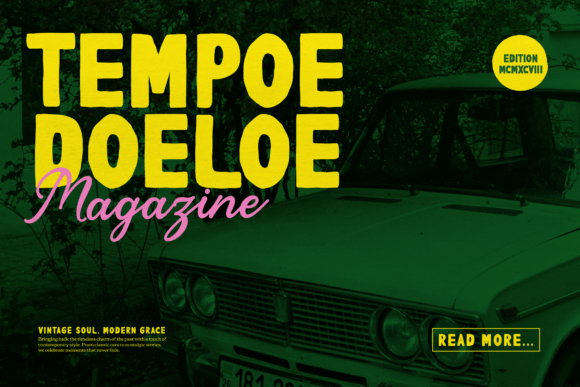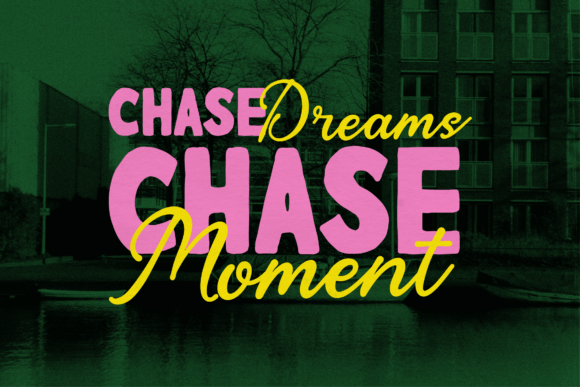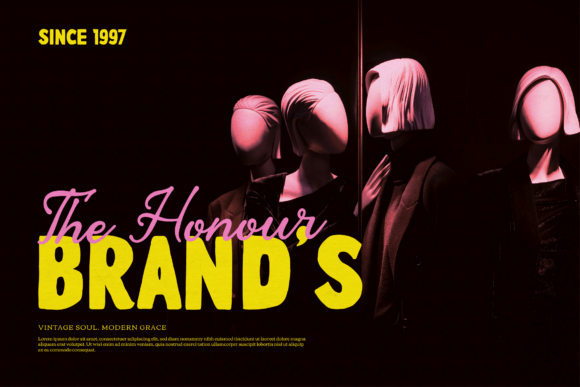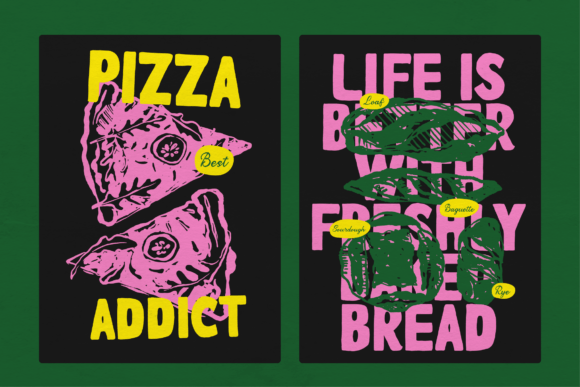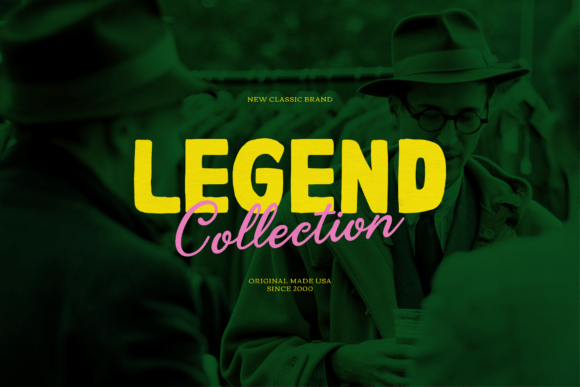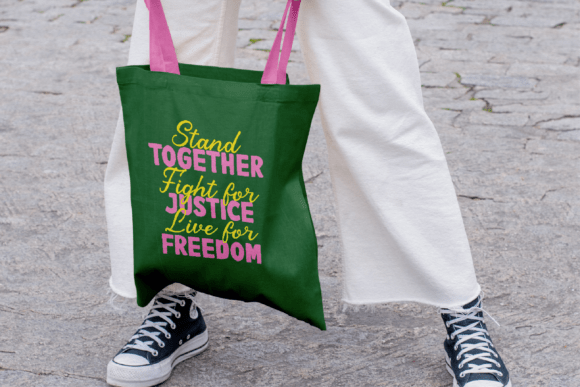
Introduction to Record Struggle Font Font
Fonts play a crucial role in design, and the Record Struggle Font font is a typeface that brings both character and versatility to any project. Whether you’re working on a branding project, a website, or a print design, the Record Struggle Font font offers a unique style that can elevate your work.
Record Struggle is a bold and expressive font duo that pairs a chunky hand-drawn sans with a smooth vintage script.
This combination creates a dynamic retro feel perfect for posters, music covers, streetwear branding, and rebellious editorial layouts The sans serif delivers power and attitude with its rough edges, while the script adds fluidity and motion.
The Record Struggle Font font is more than just a typeface – it’s a design tool that helps you communicate your message with style and clarity. Its unique character set and versatile design make it suitable for a wide range of applications, from elegant invitations to bold headlines.
With its carefully crafted letterforms and balanced proportions, the Record Struggle Font font ensures readability and visual appeal across all mediums.
The Record Struggle Font font stands out with its unique design, exceptional readability, and versatility across various design applications.